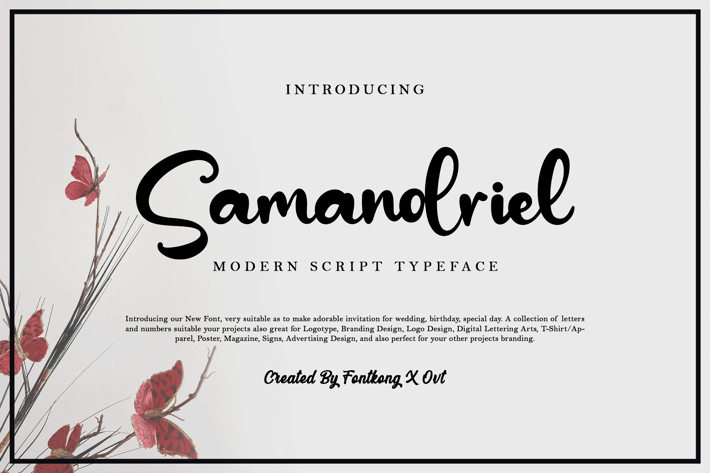
Samandriel - A Modern Script Typeface
Samandriel is a sophisticated and elegant modern script typeface designed to infuse your design projects with a touch of luxury and charm. With its flowing curves and graceful letterforms, Samandriel is perfect for wedding invitations, upscale branding, stylish logos, and refined stationery. This font seamlessly blends the classic beauty of handwritten script with contemporary design elements, ensuring your work stands out with elegance and flair.
Crafted with meticulous detail, Samandriel features smooth and fluid characters that offer excellent readability and visual appeal. Its elegant design makes it ideal for both headlines and body text, providing a cohesive and polished look across all your visual communications. The font’s versatility allows it to integrate seamlessly into various design contexts, from digital platforms to printed materials.
Elevate your design projects with Samandriel, a font that embodies the perfect harmony of tradition and modernity. Its unique style and adaptability make it an essential addition to any designer’s toolkit for creating sophisticated and captivating visuals. Enhance your work with Samandriel and experience the charm of modern script typography.